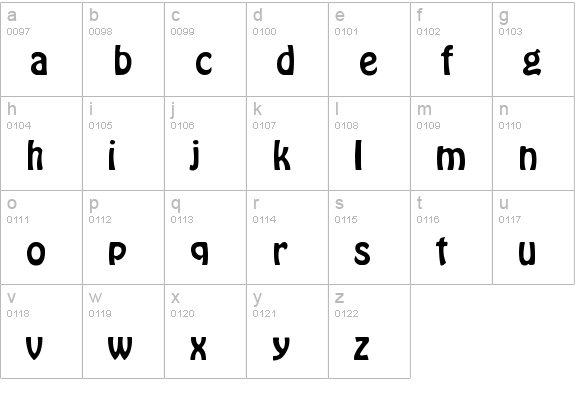
Hobby Headline Font Details
Introducing Hobby Headline font, a versatile and stylish typeface perfect for adding a touch of creativity to your designs. This captivating font features a unique blend of modern and classic elements, making it suitable for a wide range of projects. With its bold and eye-catching appearance, Hobby Headline font is sure to make a statement. The best part? Hobby Headline font is completely free to download at FontsMarket.com. Whether you're working on a branding project, poster design, or any other creative endeavor, this font will elevate your work to the next level. Don't miss out on the opportunity to enhance your designs with the captivating Hobby Headline font - get your free download today!